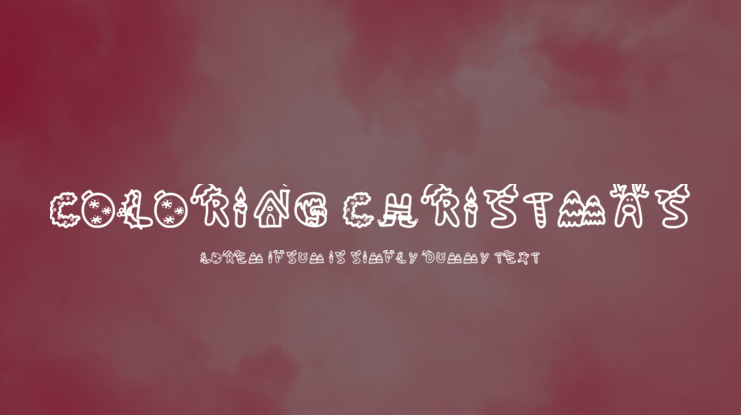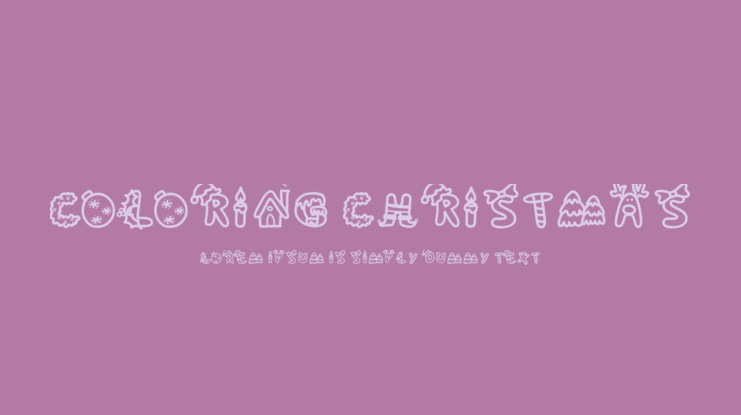
coloring christmas Font
A font, primarily done for my kids to color. Hope it will help you unleash your inner child! ;) Includes uppercase, lowercase, numbers and Greek.